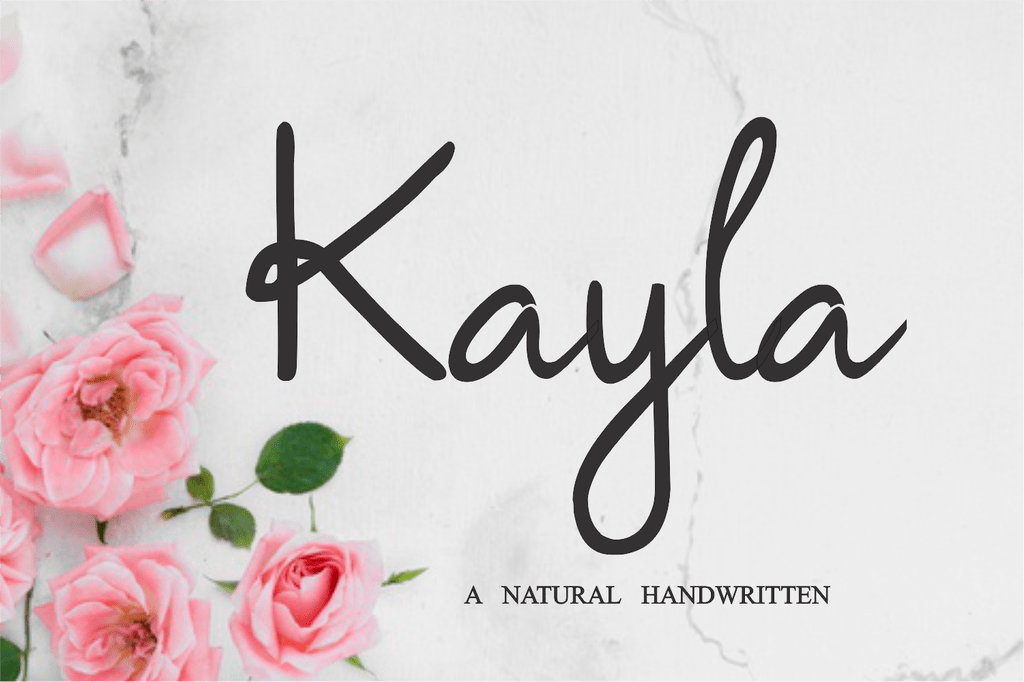
Kayla In Different Fonts
Finding the Right Font for Kayla
The name Kayla is a popular name for children, and it's no surprise that many parents are looking for the perfect font to represent their daughter's name. With so many fonts to choose from, it can be difficult to pick the perfect one. Fortunately, there are some tips and tricks that can help you find the right font for Kayla.
First, consider the style of the font. Different fonts can convey different messages, so it's important to think about the personality of your daughter. If she's a fun and outgoing child, you may want to choose a font that reflects that. If she's more reserved and serious, a more traditional font may be a better fit.
Also take into account the shape of the letters. Some fonts are more rounded, while others are more angular. This can also have an impact on the message that your daughter's name conveys. If you want to give her name a modern feel, a more angular font may be the way to go. If you want to give it a more classic feel, a more rounded font may be the better choice.
Examples of Different Fonts Suitable for Kayla
Once you've decided on the style and shape of the font, it's time to start looking at some specific examples. Here are a few popular fonts that are suitable for Kayla:
The font Gill Sans is a classic font with a modern twist. It's a sans-serif font that has a slightly rounded shape, making it a great choice for a modern yet classic look.
The font Raleway is a popular font that has a more modern, angular shape. It's perfect for giving your daughter's name an edgy, contemporary look.
The font Rockwell is a classic font with a rounded shape. It's perfect for giving your daughter's name a timeless, elegant feel.
The font Open Sans is a modern font with a slightly angular shape. It's perfect for giving your daughter's name a modern, stylish look.
Tips for Getting the Perfect Font for Kayla
Once you've chosen the font you want to use for your daughter's name, there are a few more tips to keep in mind. First, make sure the font size is appropriate. You don't want the font to be too big or too small, as this can make it difficult to read.
Also, consider whether you want to use all uppercase or all lowercase letters. This can also have an impact on the overall look and feel of the font.
Finally, consider the color of the font. Different colors can have different effects, so make sure to pick one that best fits the style you're going for.
Choosing the perfect font for Kayla can be a daunting task, but with some careful consideration and the right tips, you can find the perfect font that will represent your daughter's name in the best way possible. Remember to consider the style, shape, size, case, and color of the font when making your decision. With the right font, you'll be able to give your daughter's name the perfect look it deserves.